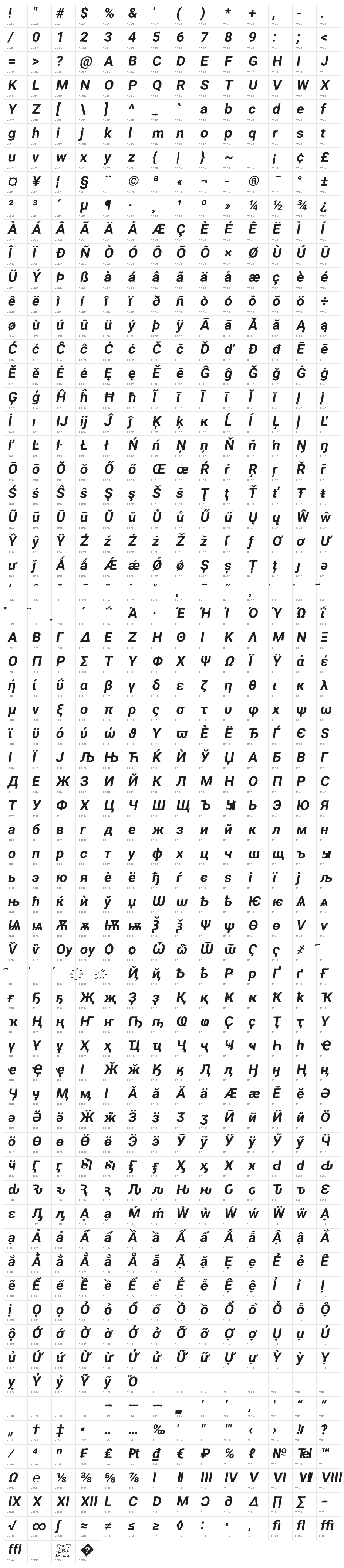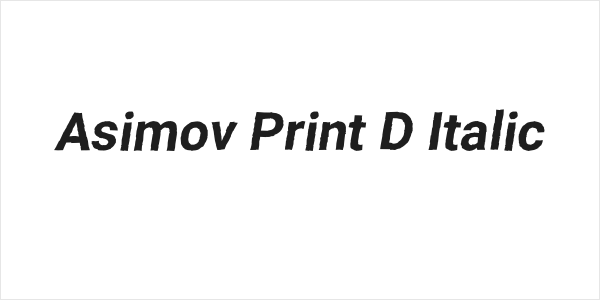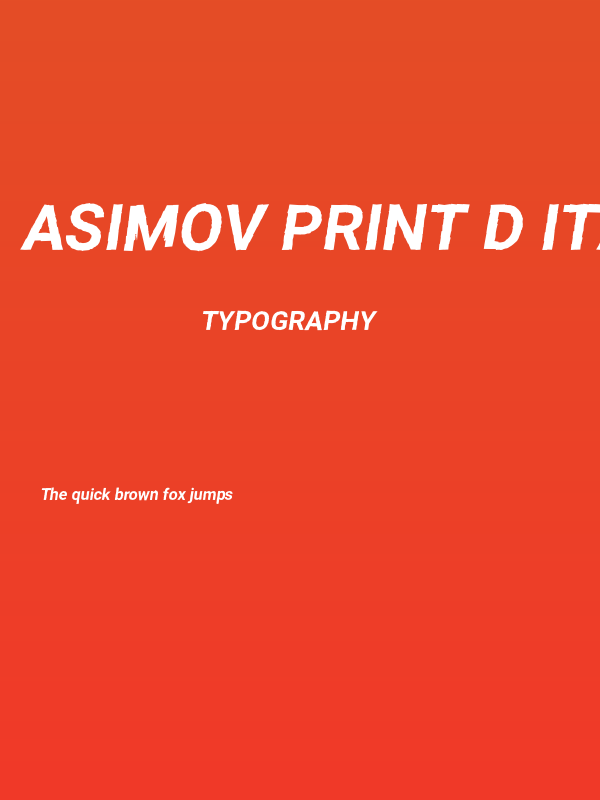
Asimov Print D Italic Font
Asimov Print D Italic Description
This font exhibits a bold and dynamic style with a pronounced italic slant, giving it a sense of motion and urgency. The characters are well-defined with a consistent stroke width, which contributes to its bold appearance. The uppercase and lowercase letters maintain a uniform height, ensuring readability. The numerals are clear and distinct, making them suitable for various applications. Special characters are included, providing versatility for different uses. The overall design is modern and sleek, making it ideal for projects that require a strong visual impact.
| Use Case | Headlines, Logos, Advertising |
| Proposed Projects | Ideal for branding, advertising, headlines, and digital media where a strong and modern impression is needed. |